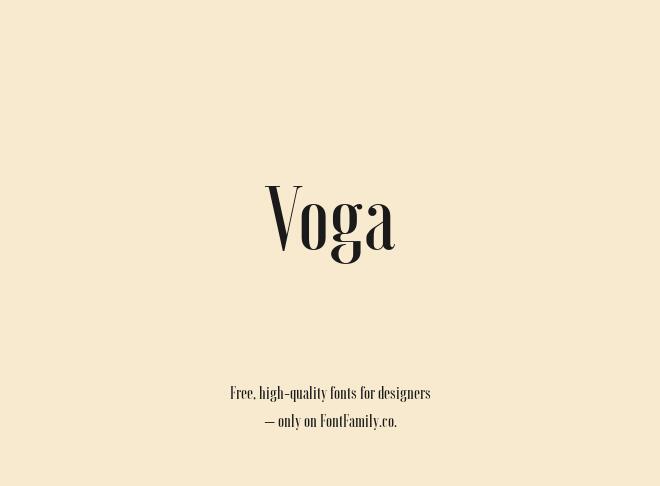
Voga Font
Voga Font, designed by Charles Daoud, is a modern, elegant, display, serif typeface that was released in 2014. It is characterized by its stylish and elegant letterforms, making it an excellent choice for high-end branding, editorial designs, or any project aiming for a chic and sophisticated aesthetic. Its unique and sleek design sets it apart from other fonts, with its high contrast and sharp serifs that give it a distinctive look. Voga Font is reminiscent of the classic Didone fonts but with a contemporary twist. It is perfect for designers looking to add a touch of elegance and refinement to their projects. The font is free for personal use, making it an accessible choice for independent designers and small businesses.
Author | Charles Daoud |
Release Year | 2014 |